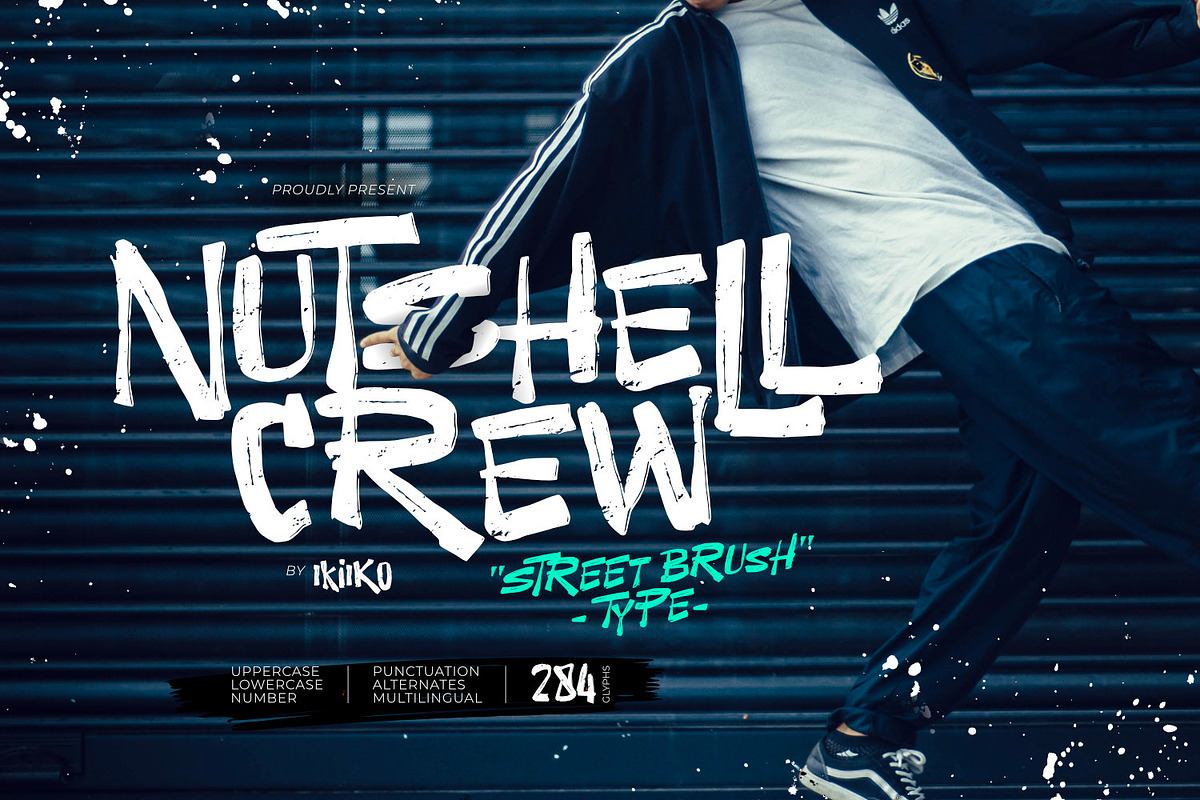
Nutshell Crew - Street Brush Type Free Download is a dynamic and urban-inspired font designed with rough, brush-style strokes. This typeface brings a street art vibe to your designs, making it perfect for logos, posters, apparel, graffiti-inspired projects, and any design that needs a bold and gritty look.
The bold, expressive brush strokes give it a raw, handmade feel, ideal for streetwear brands, music posters, or any project aiming for a rebellious and creative aesthetic.